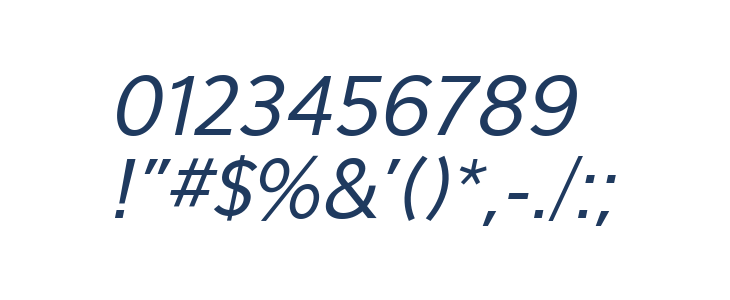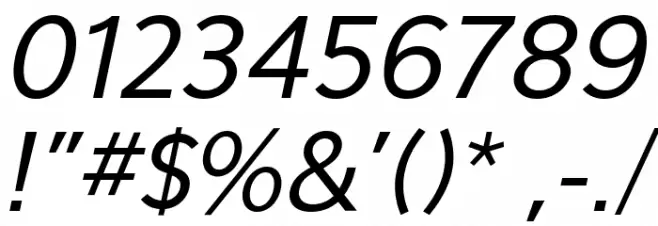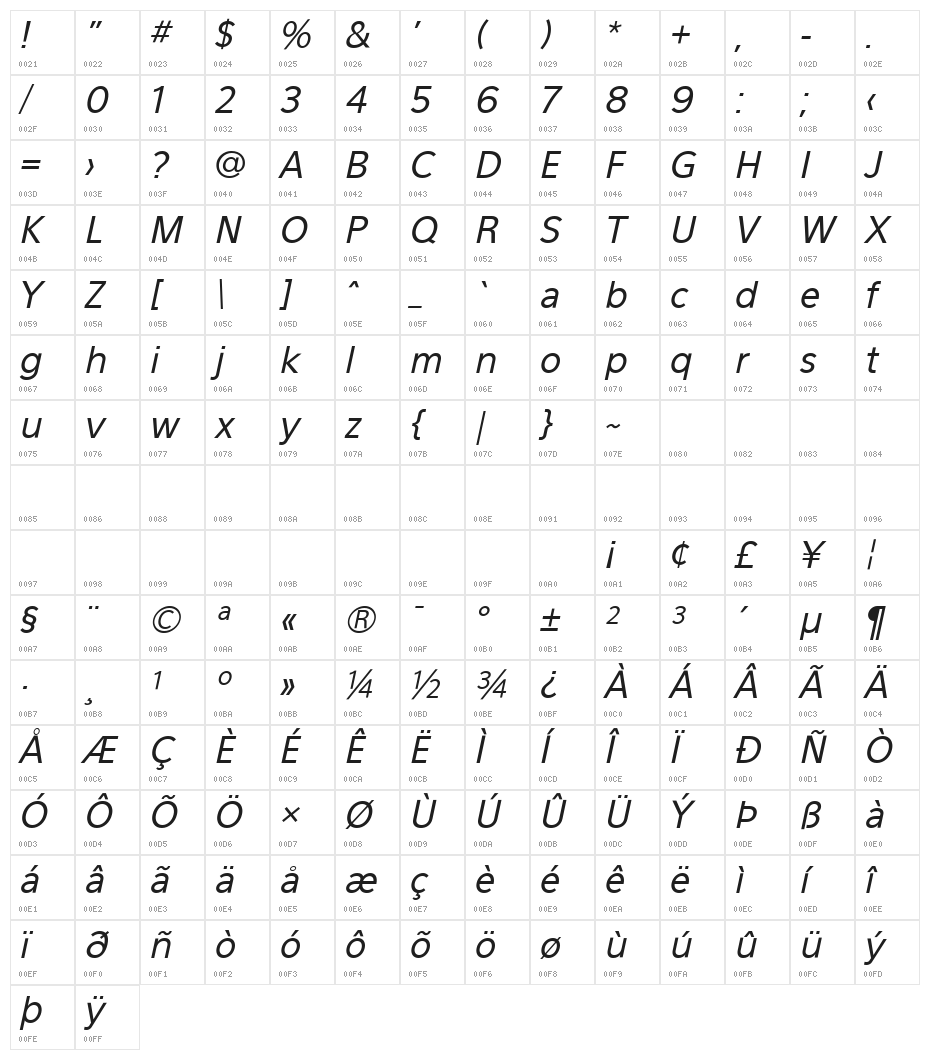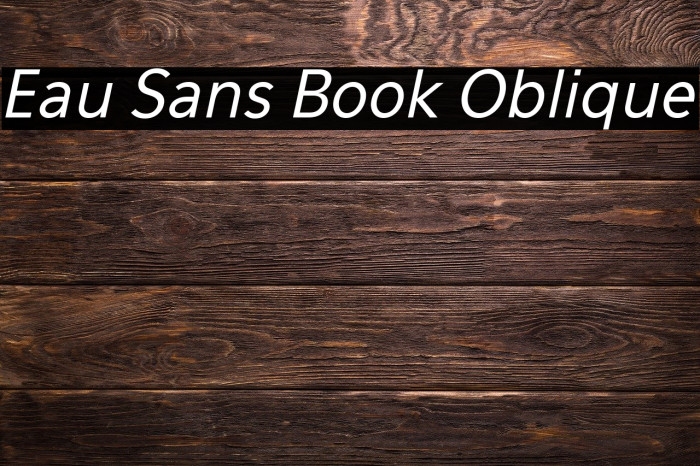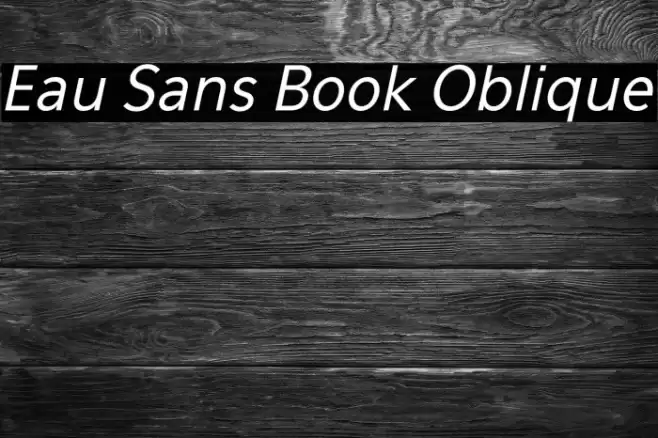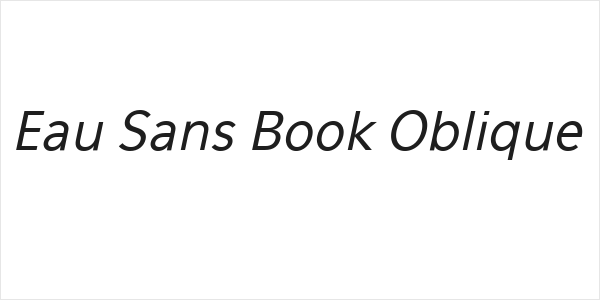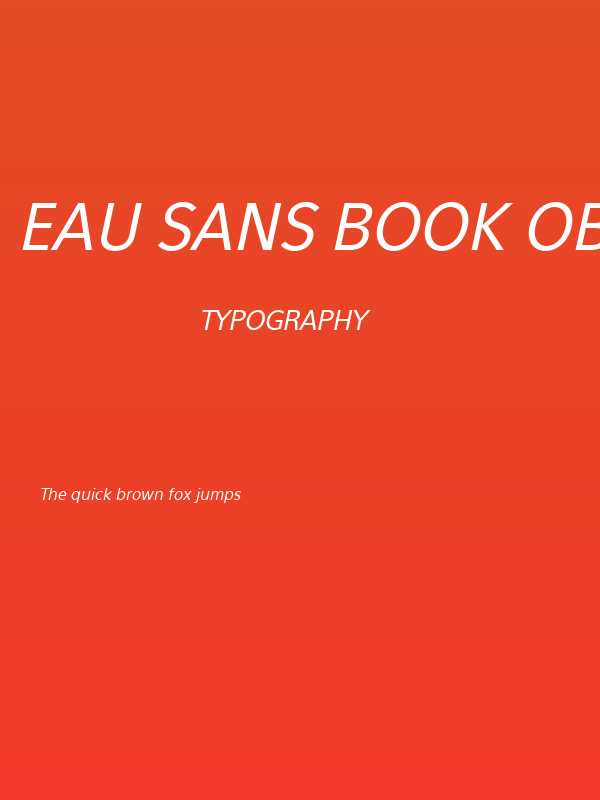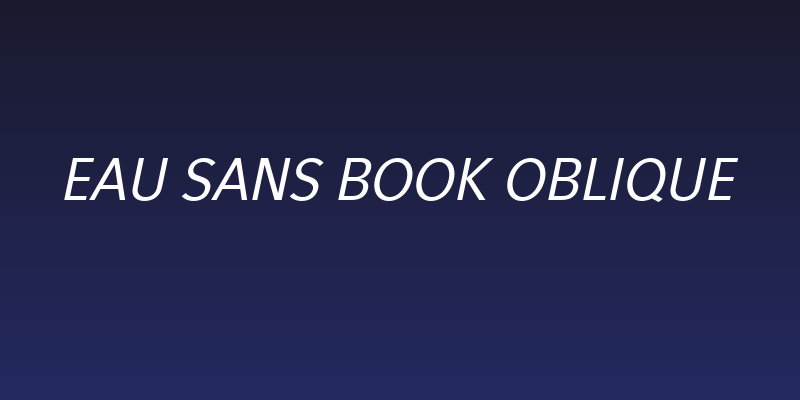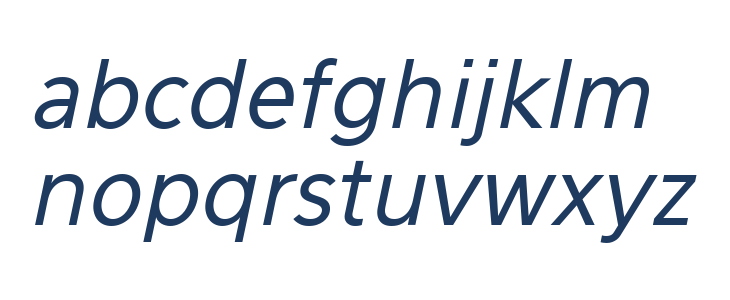
Eau Sans Book Oblique Font
Eau Sans Book Oblique Description
This font features a sleek and modern sans-serif design with an oblique style, giving it a dynamic and forward-leaning appearance. The characters are clean and well-defined, with a consistent stroke width that maintains a uniform look across both uppercase and lowercase letters. The numerals are clear and easy to read, and the special characters are distinct and well-integrated into the overall design. The font's oblique nature adds a sense of motion and elegance, making it suitable for contemporary design projects.